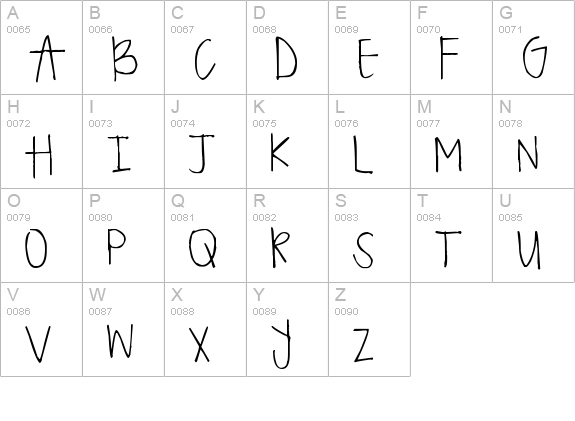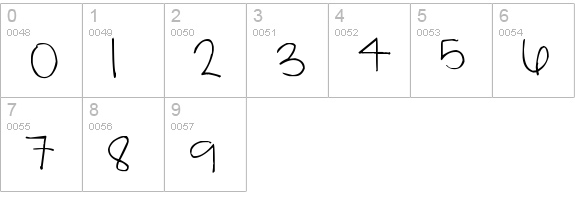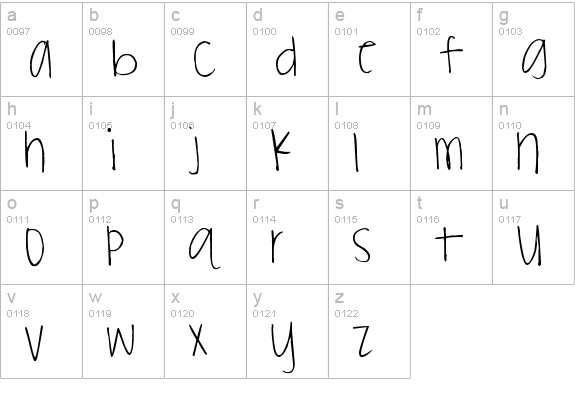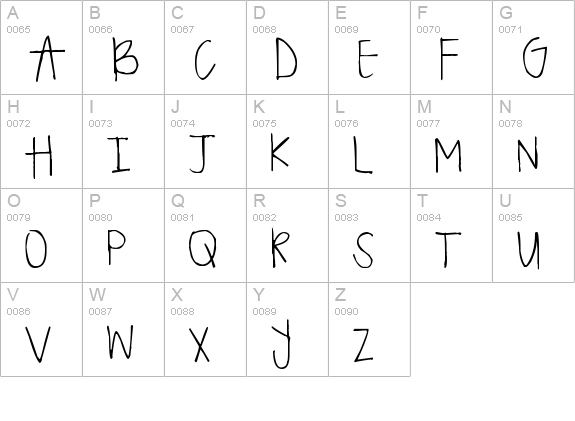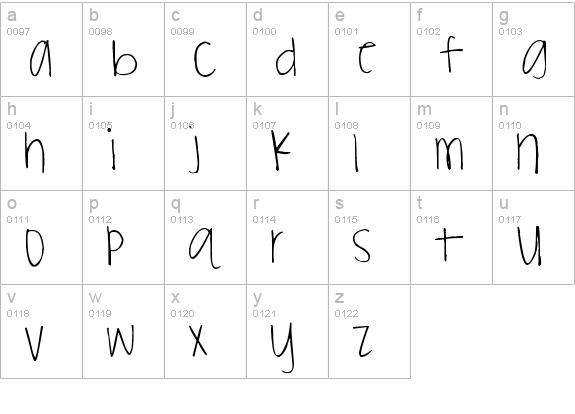
Pea Summer Sweetness Font Details
Pea Summer Sweetness font is a whimsical and charming typeface that exudes a delightful and playful vibe. With its handwritten style and unique flair, this font is perfect for adding a touch of sweetness to your designs. The soft curves and flowing lines of Pea Summer Sweetness evoke a sense of warmth and happiness, making it ideal for projects that aim to spread joy and positivity. Best of all, Pea Summer Sweetness font is available for free download at FontsMarket.com. This means that you can easily access this lovely font and use it in your personal and commercial projects without any cost. Whether you're designing greeting cards, invitations, posters, or social media graphics, Pea Summer Sweetness font will bring a touch of summer sweetness to your creations. Embrace the free-spirited charm of Pea Summer Sweetness font and let your creativity shine!